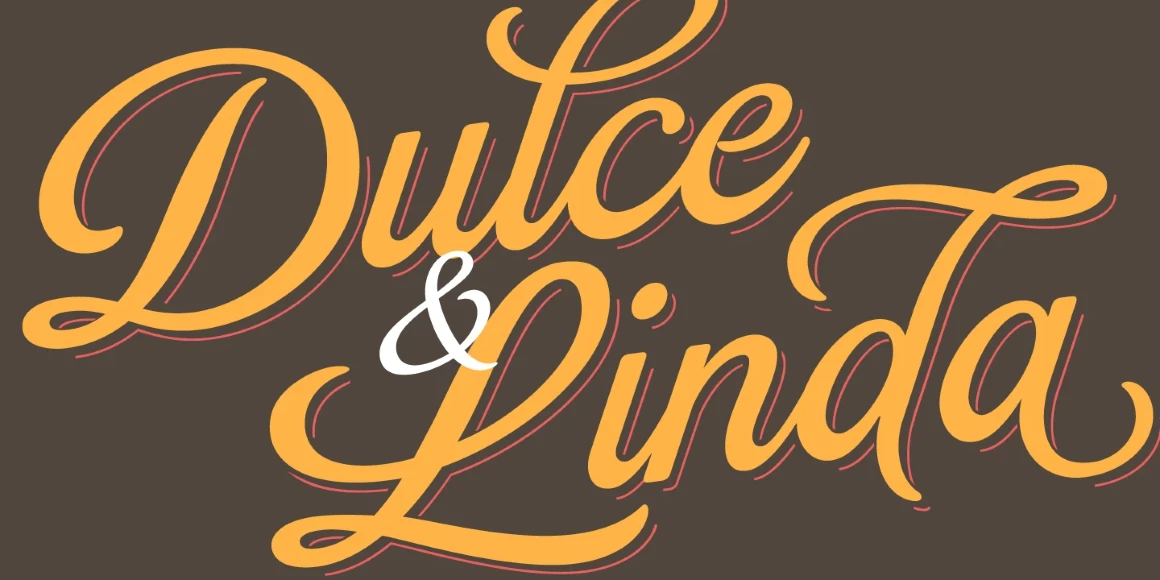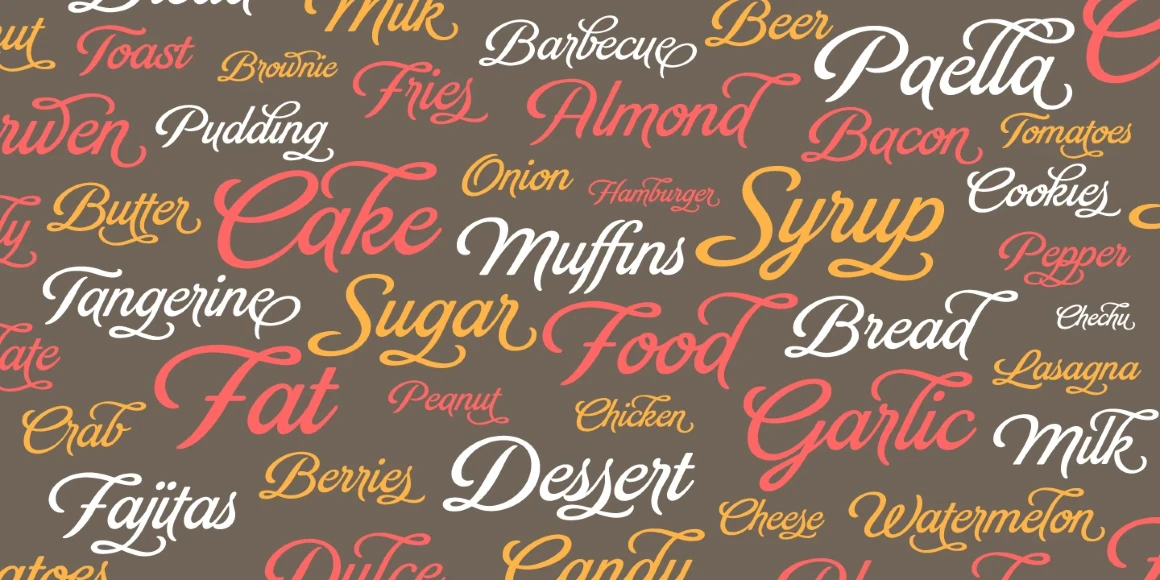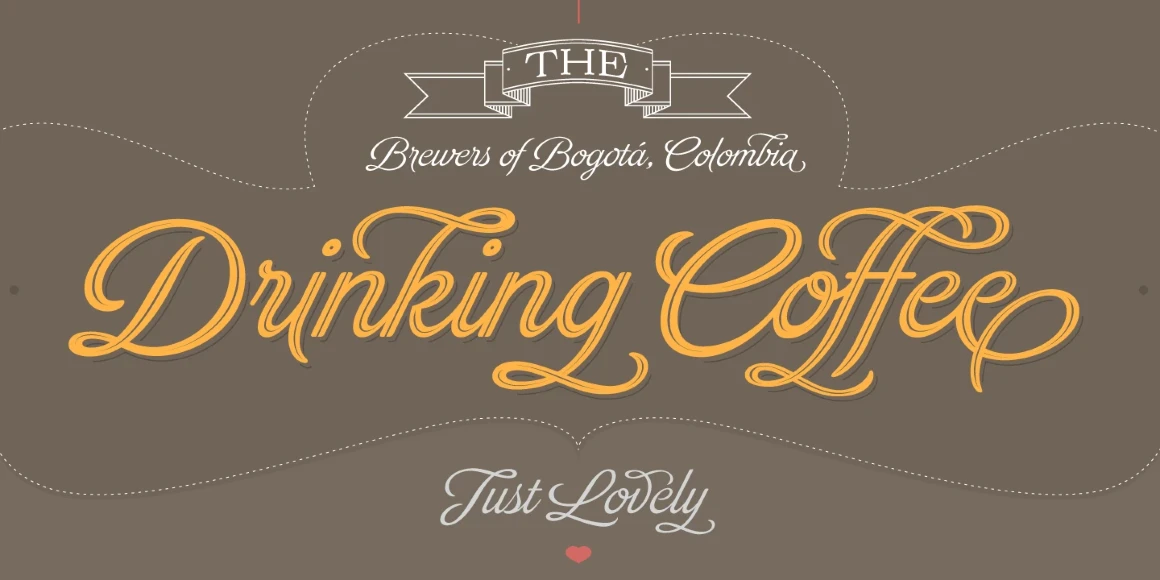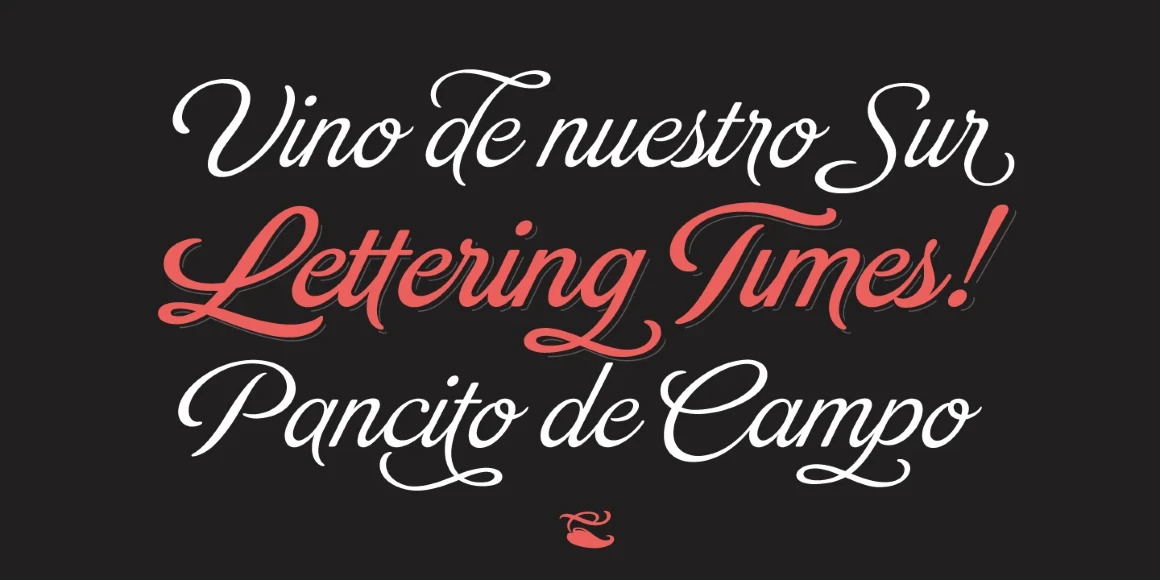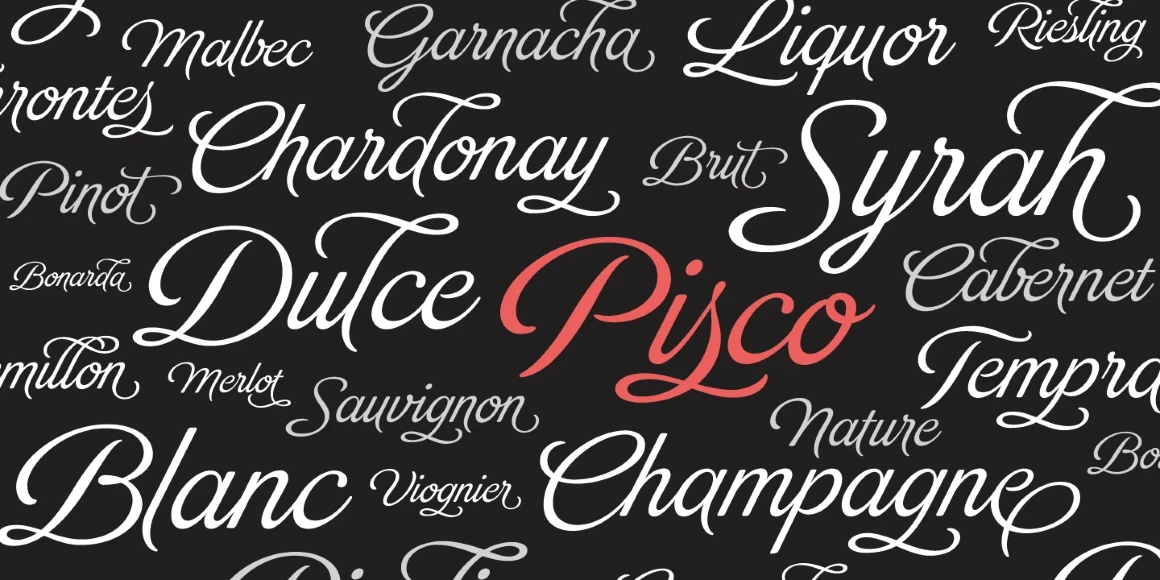
Brand
By Maximiliano Sproviero
Brand Light
Brand Ornaments
Brand Inline
Brand Regular
Brand Shade
Brand Shade Solo
Brand results from the desire to design a soft cursive script that would become as ubiquitous as Jam jars, Warhol’s “Tomato Soup,” chalk lettering, and baseball. First and foremost, it is a typeface for brands. One might even think it is mainly for packaging. But clever designers can use it across magazine spreads, party invitations, logotypes, packaging, and advertisements. Look at the ample alternates, ligatures, and ornaments to expand your ideas further into the unexpected!